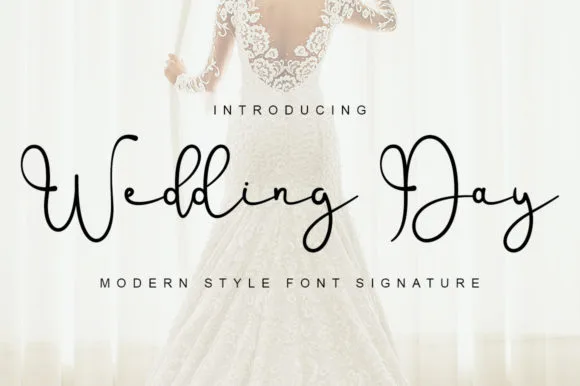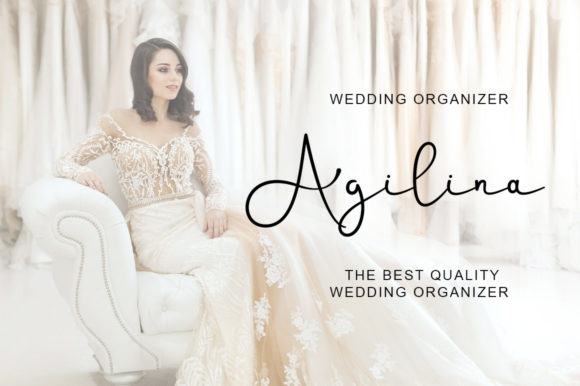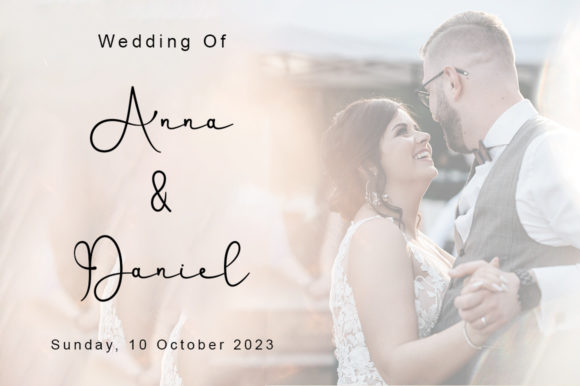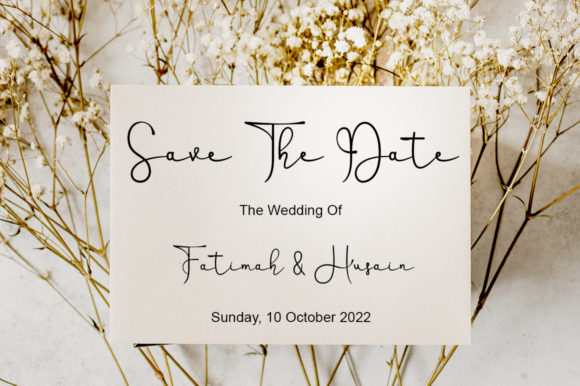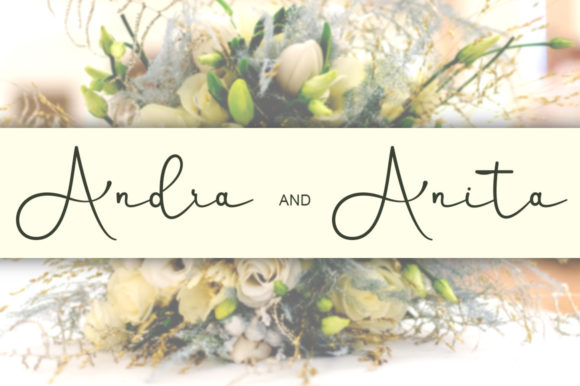
About Wedding Day Font
“Wedding Day, a distinctive and fashionable script font, is designed to infuse an aura of luxury into your most cherished design projects. Meticulously crafted, this font exhibits a subtle elegance with exceptionally neat kerning, ensuring a refined and polished aesthetic for your creative endeavors.
Unveil the opulence of Wedding Day as it gracefully transforms your text into a visual masterpiece. This font goes beyond conventional styles, offering a unique and sophisticated touch that is perfect for weddings, upscale events, and any project where an element of refined beauty is desired.
The intricate details of Wedding Day make it a standout choice, elevating your designs to new heights of sophistication. The font’s flawless kerning enhances readability, contributing to a seamless and visually pleasing experience for your audience.
Whether used for wedding invitations, brand logos, or any other design application, Wedding Day effortlessly captures attention with its distinct charm. It seamlessly blends modernity with timeless elegance, making it an ideal choice for those who seek to add a touch of glamour to their creative work.
Embrace the allure of Wedding Day, where each stroke is a testament to craftsmanship and each character contributes to an overall sense of sophistication. Elevate your projects with this font, and let the subtle luxury of Wedding Day leave a lasting impression on your audience, making your designs truly unforgettable.”